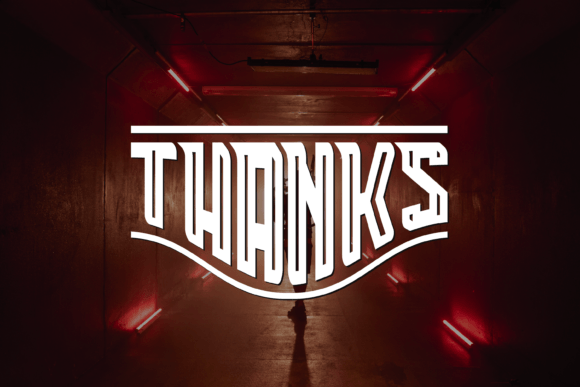
Introduction to Dencico Font
Have you ever stared at a blank canvas, waiting for inspiration to strike? You’ve got a creative project in mind, but something’s missing. The perfect design resource can make all the difference. That’s where the Dencico Font comes in – a charming slab serif font that adds a touch of elegance to your work.
With its unique blend of classic style and modern flair, the Dencico Font is an invaluable asset for designers looking to elevate their designs. Whether you’re working on a complex project or just need a high-quality font for a simple graphic, this font has got you covered. And the best part? It’s available for a free download, making it a must-have for any design enthusiast.
Key Features of Dencico Font
- Designed to be highly versatile, suitable for a wide range of applications, from digital art to print materials.
- Unique, modern design that can add a creative twist to any project, making it a valuable design resource.
Honest Review: Dencico Font
I recently stumbled upon the Dencico Font, and I must say it’s been a game-changer for my creative projects. The high-quality design resource has been a lifesaver, especially when I needed a font that could seamlessly integrate with my transparent background designs.
Here are some aspects that truly stood out to me: ✨
- Extensive character set: The font has a wide range of characters, including accented letters and symbols, making it perfect for international projects.
- Highly customizable: The Dencico Font can be easily modified to fit your specific design needs, whether it’s changing the font size or adjusting the line height.
However, I did encounter some limitations: ⚠️
- Limited compatibility: I encountered some issues with the font not displaying correctly in certain software programs.
- Not suitable for print: The font’s design may not be ideal for print materials, as it can become pixelated when enlarged.
Overall, I’m thoroughly impressed with the Dencico Font. Its versatility and high quality make it an excellent design resource for any creative project. While it may have some limitations, the benefits far outweigh the drawbacks, making it a valuable addition to my design toolkit.
Tips for Getting the Most Out of Dencico Font
To get the most out of Dencico Font, use it for creative projects where a unique and stylish font is required. You can also use it as a design resource for your free download materials. By combining Dencico Font with a transparent background, you can create visually appealing designs that stand out.
Dencico Font is commonly used in creative projects such as posters, flyers, and social media graphics. It’s also a great choice for design resources like templates and themes. With its high-quality design and transparent background, Dencico Font is a versatile font that can be used in a variety of applications.